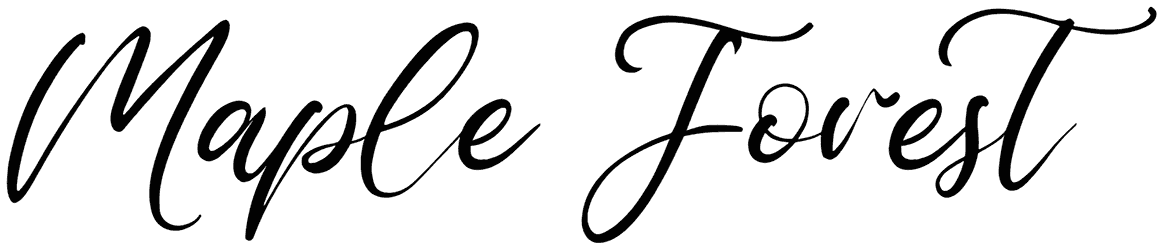
Maple Forest Font
Do not doubt that having a luxurious and delicate design can be one of the best choices to attract the audience. As a calligraphy font, Maple Forest has a soft and original style that can be a perfect show. Give this script font a try and set this cheerful item for your coming designs, namely posters, banners, magazines, and so on.